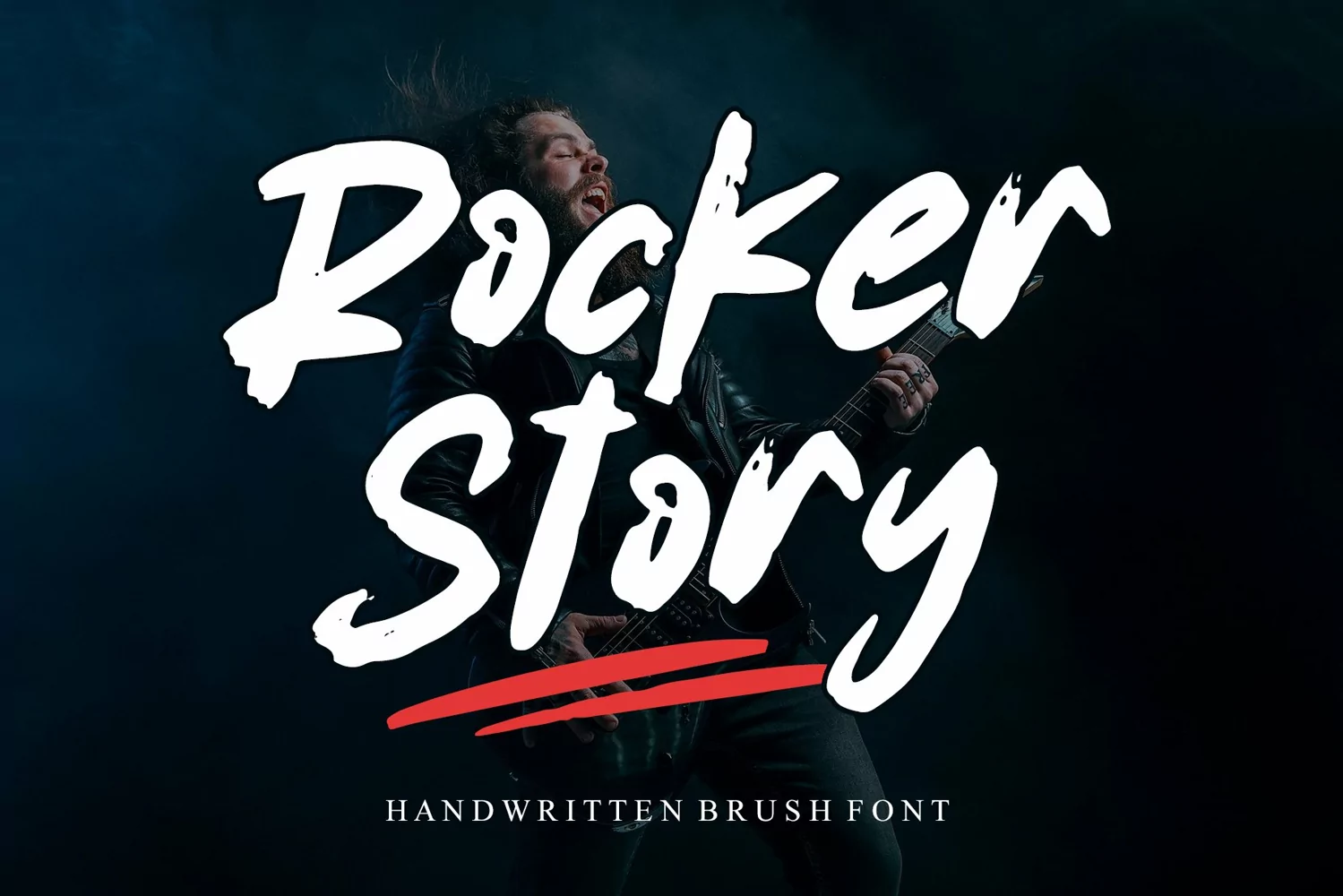
Rocker Story is a natural handwritten brush font. It looks stunning on thank you cards, quotes, greeting cards, logos, business cards, and every other design which needs a handwritten touch.